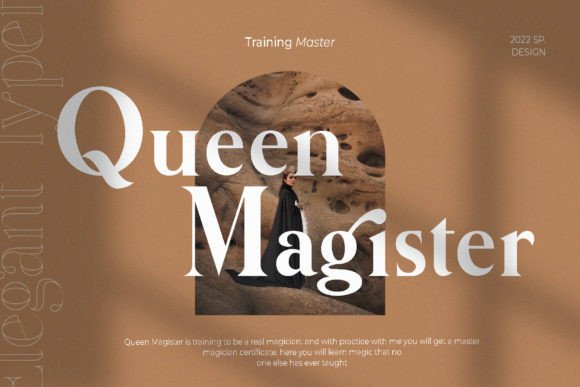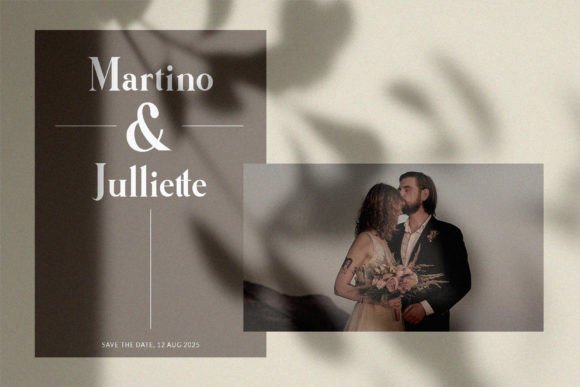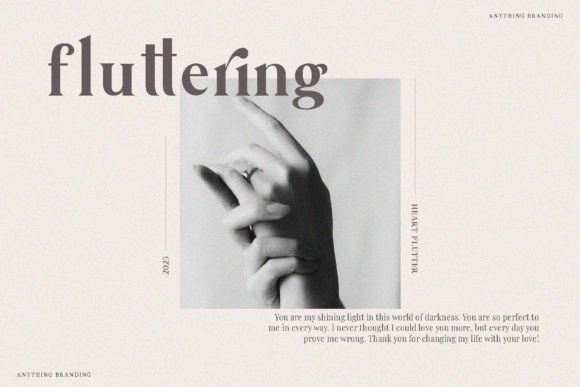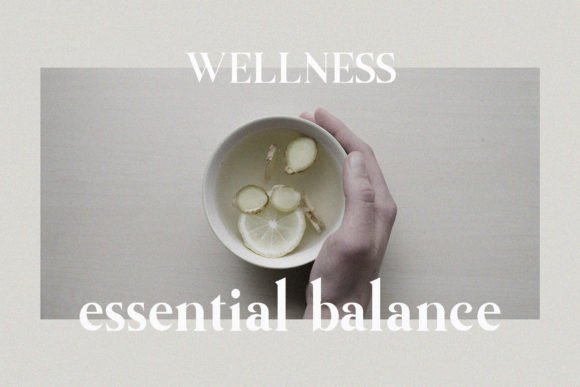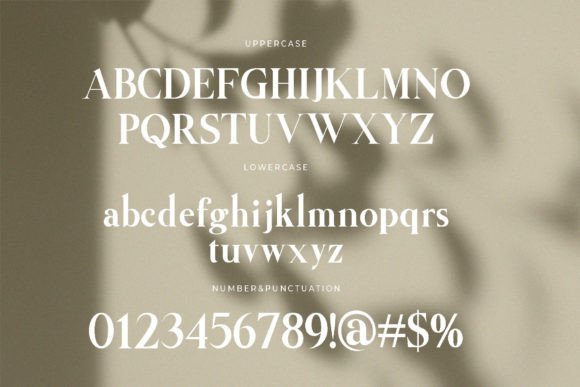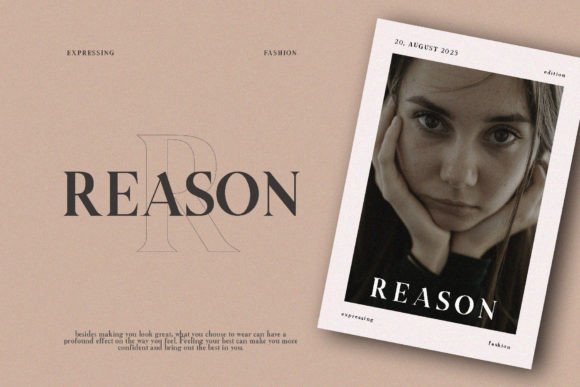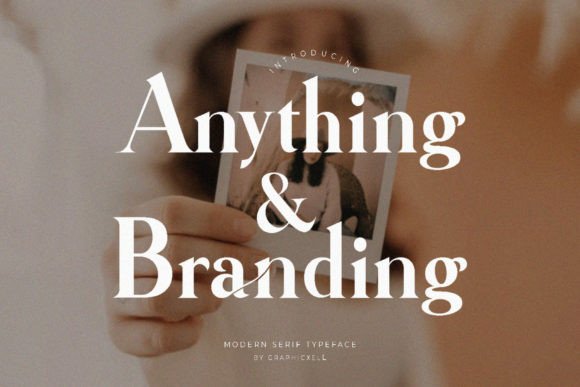
Introducing Anything Branding Font: Elevate Your Design with Elegance and Sophistication
In the world of design, typography plays a crucial role in conveying messages, evoking emotions, and creating lasting impressions. For designers and crafters seeking a modern and stylish serif font to elevate their projects, look no further than Anything Branding Font. This versatile font is perfect for a wide range of applications, from designing templates and brochures to crafting elegant logos, invitations, and social media content.
What Makes Anything Branding Font Stand Out?
Anything Branding Font is a modern serif font that exudes elegance and sophistication. Its clean lines, precise curves, and balanced proportions make it an ideal choice for designers who want to create stunning visual content. Here are some key features that set Anything Branding Font apart:
- Modern and Stylish Design: Anything Branding Font boasts a contemporary design that is both stylish and timeless. Its serif elements add a touch of sophistication, making it perfect for high-end branding and design projects.
- Versatile and Adaptable: This font is incredibly versatile and can be used for a wide range of applications, from print materials like brochures and logos to digital content like social media templates and video titles.
- Elegant and Refined: Anything Branding Font features elegant lines, precise curves, and a refined aesthetic that is sure to elevate your designs and make them stand out.
Endless Design Possibilities with Anything Branding Font
The possibilities are endless when it comes to using Anything Branding Font in your design projects. Here are some ideas to get you started:
- Template Design: Create stunning templates for brochures, flyers, and other print materials that showcase your brand’s personality and style.
- Branding and Advertising: Use Anything Branding Font to craft elegant logos, taglines, and ad copy that capture the essence of your brand and leave a lasting impression.
- Video and Film Design: Add a touch of sophistication to your video and film projects with Anything Branding Font, perfect for titles, subtitles, and credits.
- Social Media and Instagram Templates: Create visually stunning social media content, including Instagram templates, that showcase your brand’s style and personality.
- Fashion and Beauty Design: Use Anything Branding Font to create elegant and refined designs for fashion and beauty brands, including logos, packaging, and advertising materials.
Why Choose Anything Branding Font?
With so many fonts available, why choose Anything Branding Font? Here are just a few reasons why designers and crafters love this modern serif font:
- Unique and Distinctive: Anything Branding Font offers a unique and distinctive style that sets it apart from other serif fonts.
- Ease of Use: This font is incredibly easy to use, even for designers who are new to typography and design.
- High-Quality Design: Anything Branding Font is designed to the highest standards, ensuring that your designs look professional and polished.
Anything Branding Font is a versatile and stylish serif font that is perfect for designers and crafters seeking to elevate their design projects. With its modern design, elegant aesthetic, and endless possibilities for use, this font is sure to become a staple in your design toolkit. Whether you’re creating templates, branding materials, or social media content, Anything Branding Font is the perfect choice for adding a touch of sophistication and elegance to your designs.